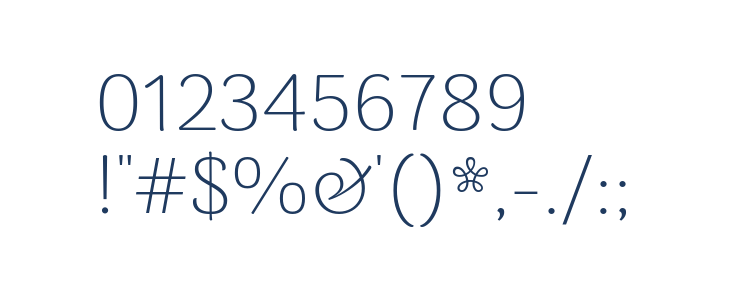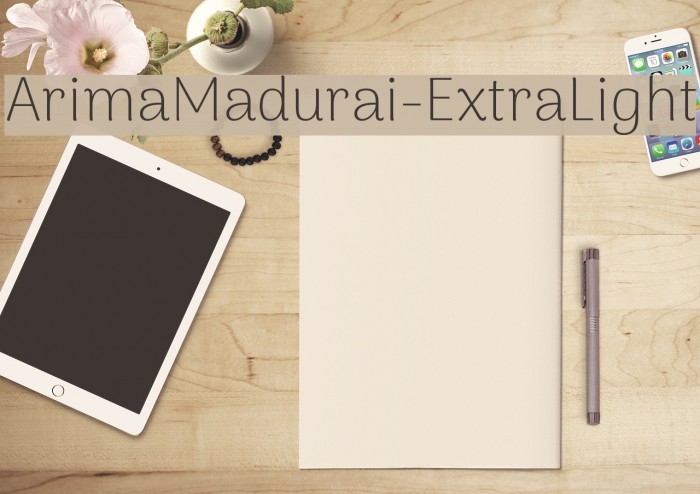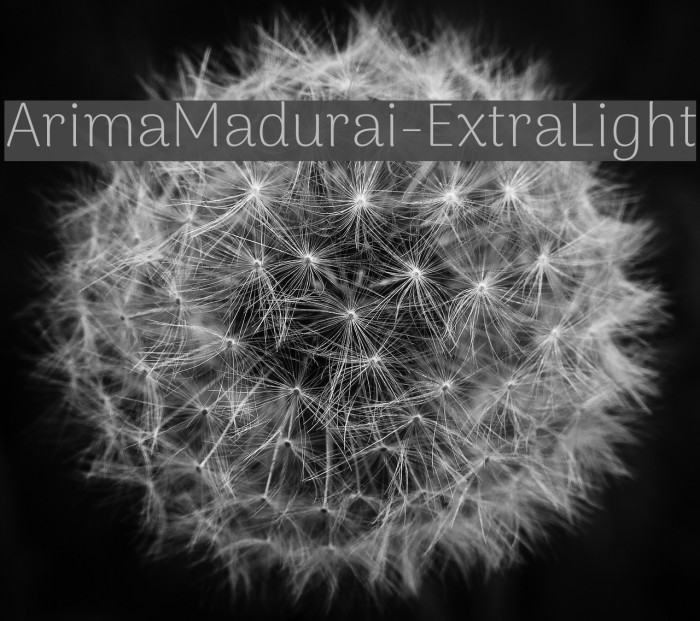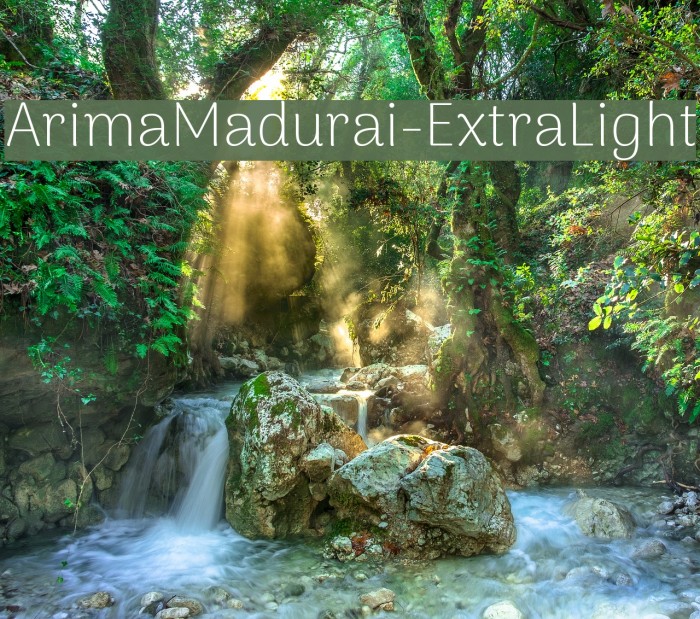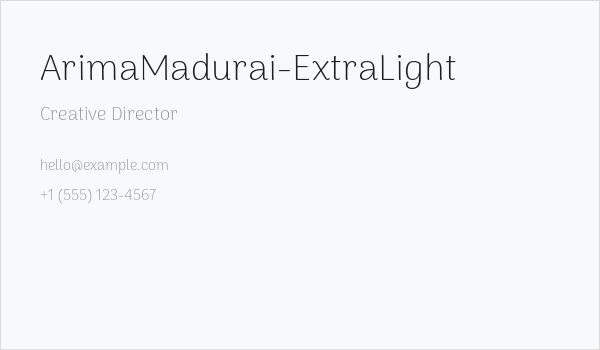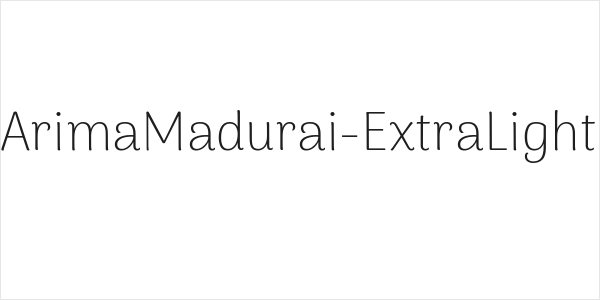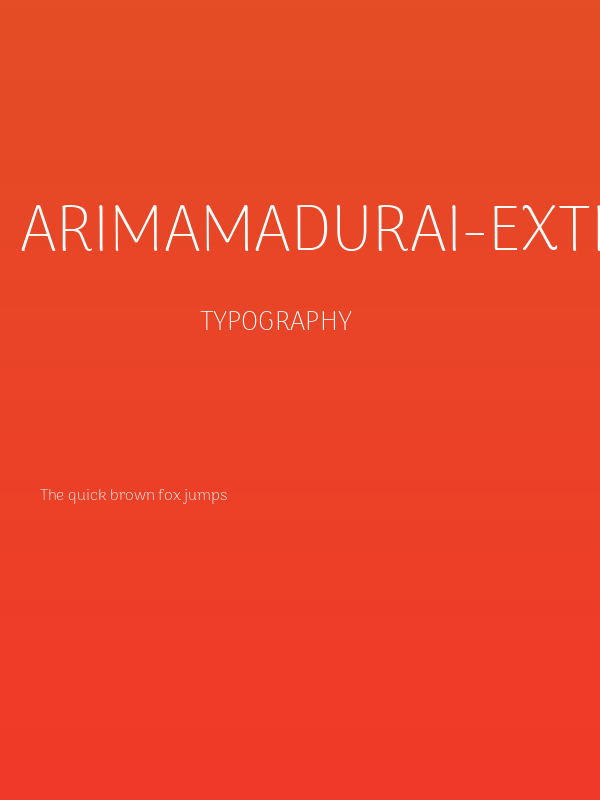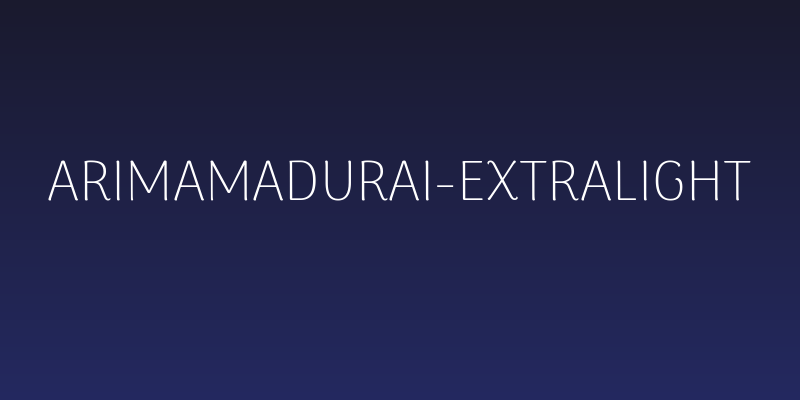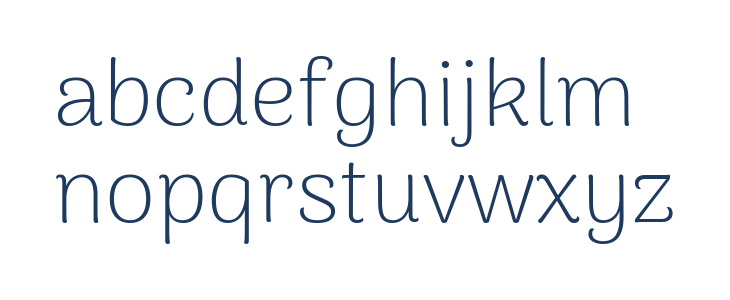
ArimaMadurai-ExtraLight Font
ArimaMadurai-ExtraLight Description
This font features a clean and modern sans-serif style with an extra light weight. The characters are elegantly thin, providing a sleek and airy appearance. The uppercase letters are uniform in height, while the lowercase letters have a subtle roundness that adds a touch of softness. The numerals are clear and easy to read, maintaining the font's minimalist aesthetic. Special characters are well-defined, ensuring versatility in various design contexts. The overall look is contemporary, making it suitable for projects that require a modern and sophisticated touch.